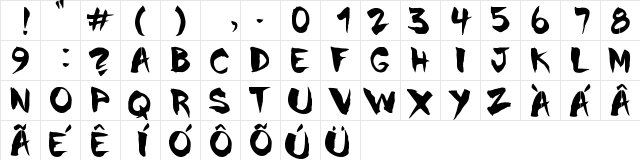
Chinela Brush Regular
Design Context for Chinela Brush Typeface
Chinela Brush flows with the natural rhythm of handwritten lettering, making it ideal for designs that call for warmth and personal expression.
Font Pairing: Combine Chinela Brush with a simple geometric sans for maximum contrast — the tension between flowing curves and clean structure is a classic typographic pairing.
Pro Tip: Pair Chinela Brush with a clean sans-serif for supporting text. The contrast between fluid script and geometric structure creates an elegant typographic hierarchy.